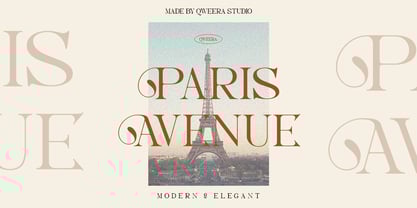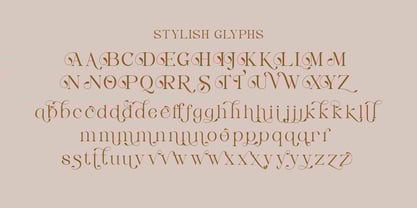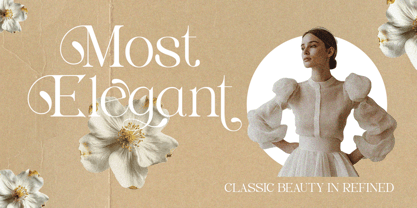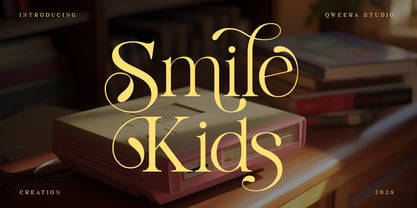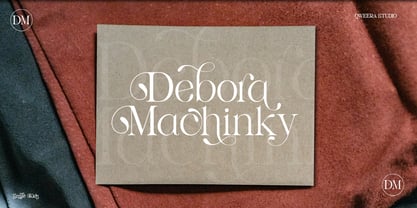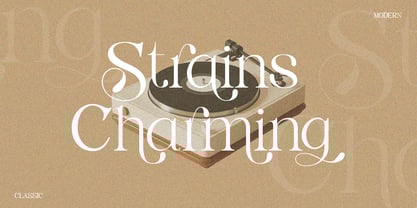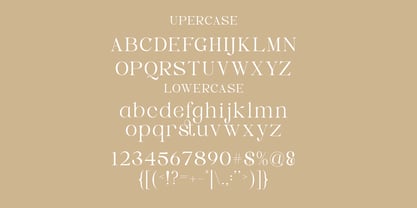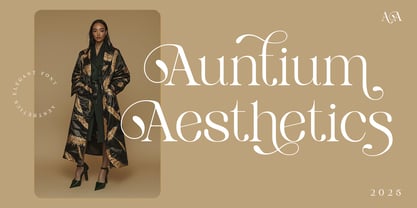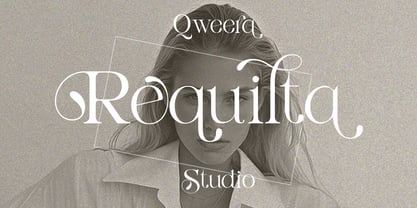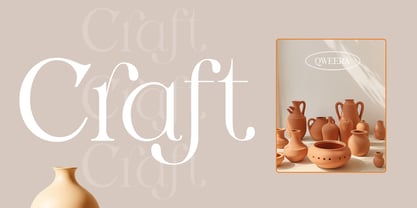
Smile Kids
Smile Kids – Modern Elegant Luxury Serif Font with Playful Sophistication
Smile Kids is more than just a font—it’s a harmonious blend of modern elegance and playful charm, designed to bring sophistication and joy to your creative projects. With its clean lines, stylish alternates, and ligatures, Smile Kids is the perfect choice for high-end branding, editorial design, and luxury packaging that aims to convey both professionalism and a touch of whimsy. Whether you’re crafting a logo, designing a magazine layout, or creating standout packaging, this font ensures your work radiates timeless elegance with a playful twist.
Where Modern Elegance Meets Playful Charm
Smile Kids stands out with its unique blend of luxury and approachability. Its stylish alternates and ligatures add a touch of creativity and individuality, making it ideal for projects that demand both sophistication and a sense of fun. From corporate branding to editorial masterpieces, Smile Kids ensures your designs are both polished and engaging.
Key Features
• Modern Elegant Serif Design – Perfect for high-end branding, editorial projects, and luxury packaging.
• Regular & Italic Versions – Versatile options for a variety of design needs.
• Stylish Alternates & Ligatures – Add a playful yet sophisticated touch to your designs.
Elevate Your Designs with Smile Kids isn’t just a font—it’s a tool to transform your creative projects into modern luxury masterpieces with a playful edge. Whether you’re designing for print, digital, or branding, this font ensures your work stands out with elegance, charm, and sophistication.